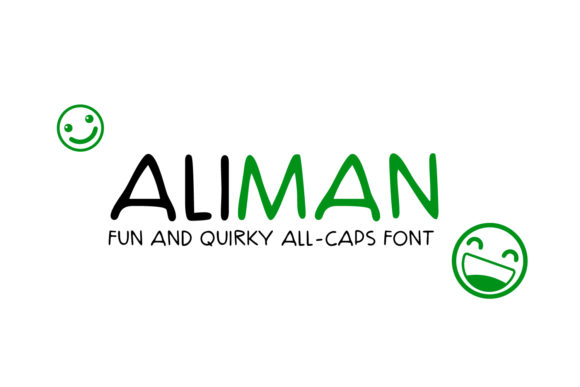
The Aliman Font: A Simple yet Powerful Addition to Your Design Arsenal
I’ll never forget the time I was working on a project for a client who wanted a font that was both elegant and playful. I had spent hours scouring the internet for the perfect one, but nothing seemed quite right. That was until I stumbled upon the Aliman font. It was love at first sight! ✨ This simple and neat lettered handwritten font has since become a staple in my design toolkit, and I’m excited to share its awesomeness with you.
An Honest Review of Aliman Font
- ✨ Simple and neat letterforms that exude elegance and sophistication
- 💫 Perfect for a wide range of design projects, from branding to invitations and more
- 🎨 Great for adding a personal touch to your designs without overwhelming the viewer
While Aliman font is an excellent choice for many design projects, there are a few things to keep in mind:
- 🤔 Limited glyphs and special characters, which may not be suitable for projects requiring a high level of customization
- ⚠️ Not ideal for body text or long-form content, as it’s best suited for headlines and titles
The Story Behind Aliman Font
Aliman font was designed by a talented type designer who wanted to create a simple, yet elegant handwritten font. The designer’s inspiration came from traditional lettering techniques and a passion for beautiful typography. The result is a font that’s both timeless and modern, perfect for adding a personal touch to your designs.
| Author | Cititype |
Q: What type of projects is Aliman font best suited for?
A: Aliman font is perfect for a wide range of design projects, including branding, invitations, posters, and more.
Q: Is Aliman font available in different weights or styles?
A: Currently, Aliman font is available in a single weight. However, some font foundries may offer variations or expansions of the font in the future.